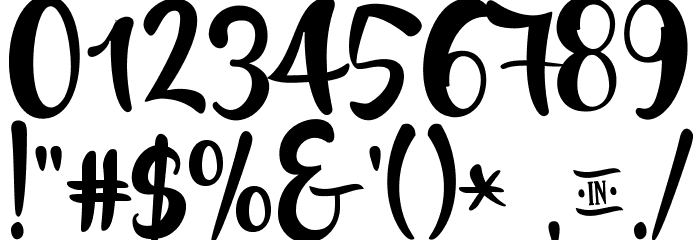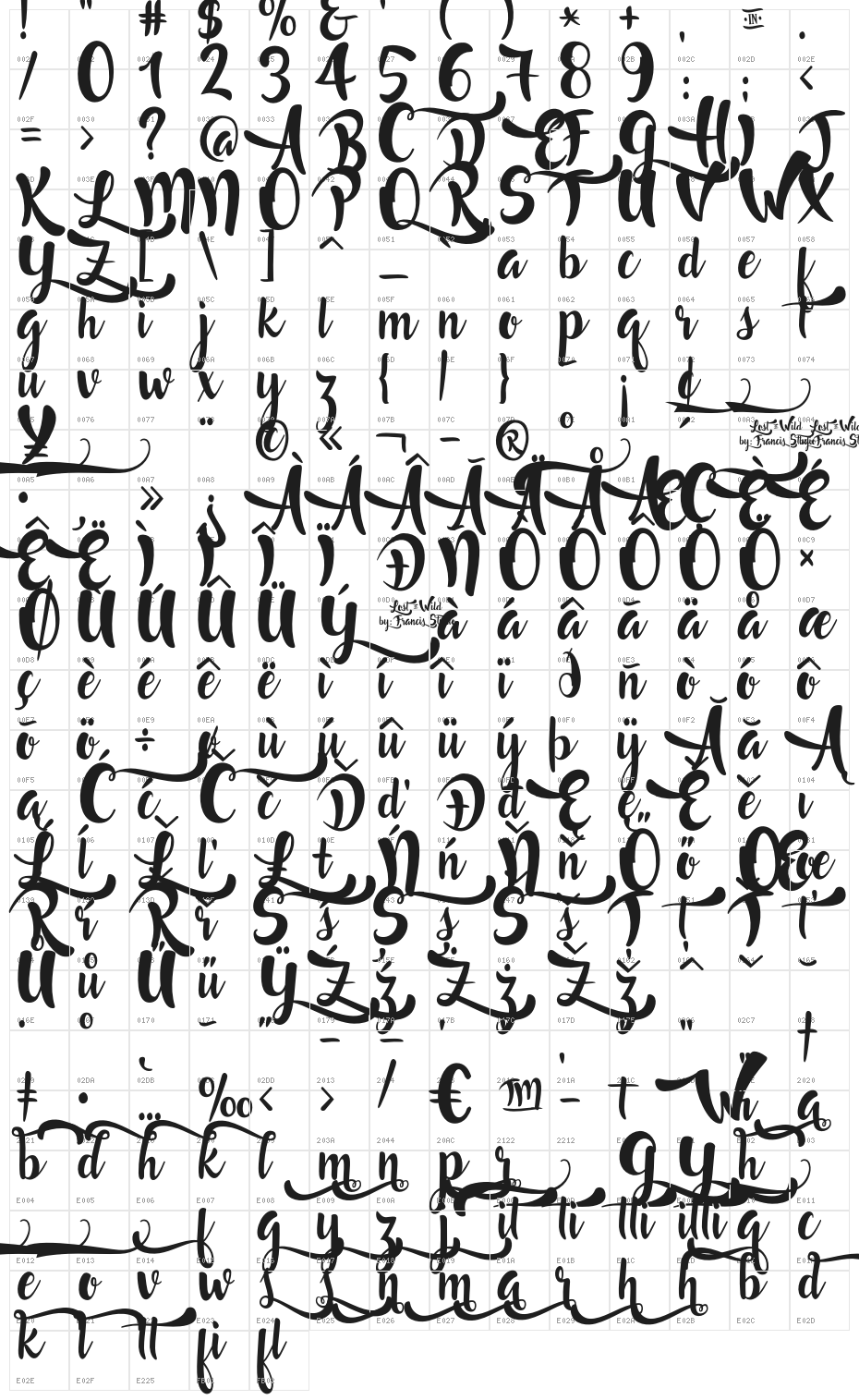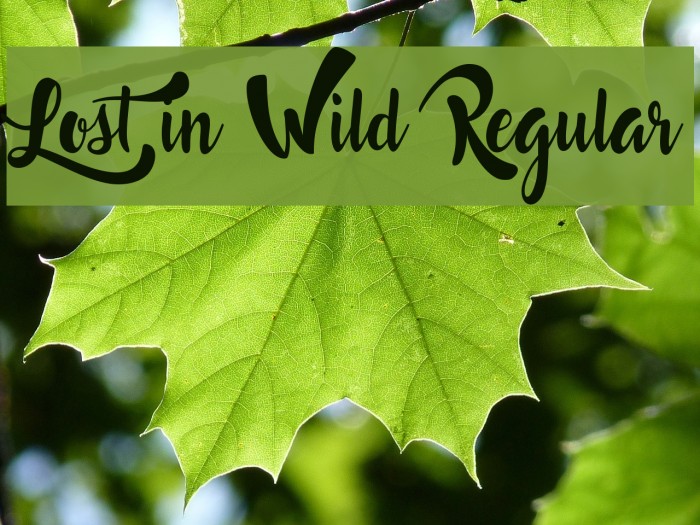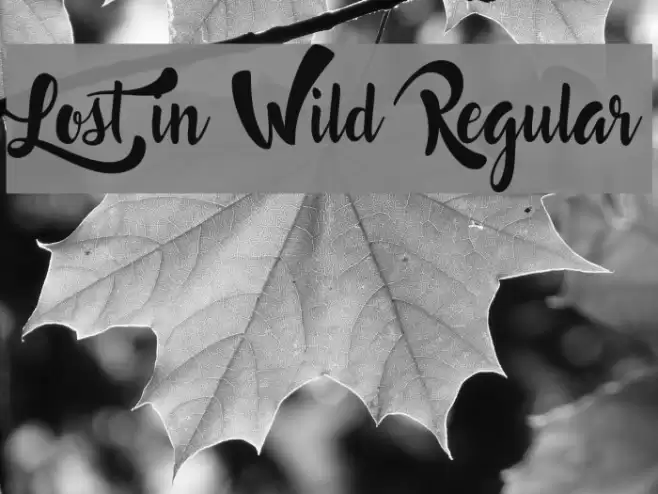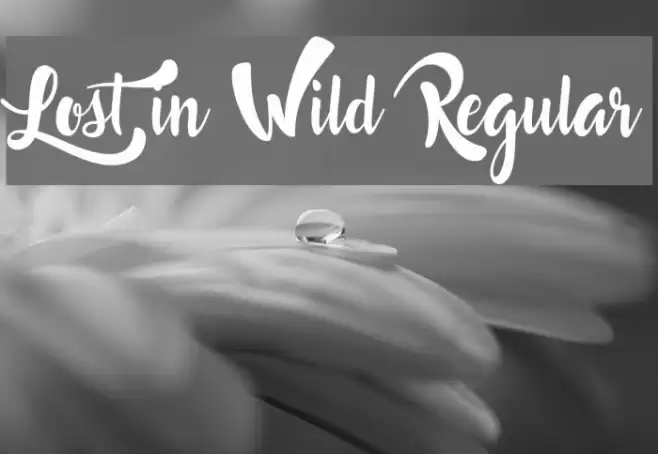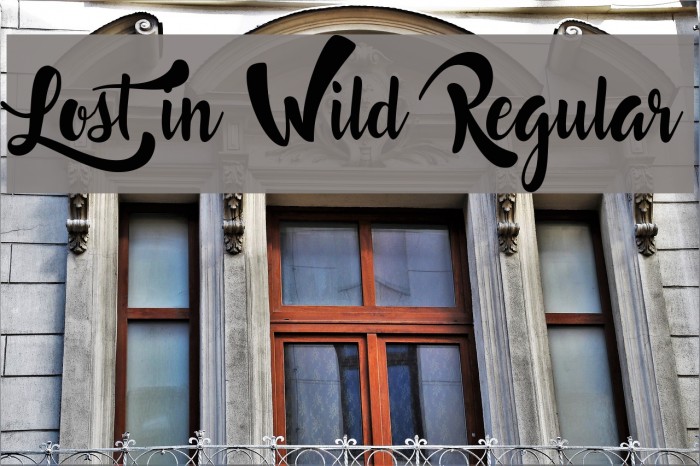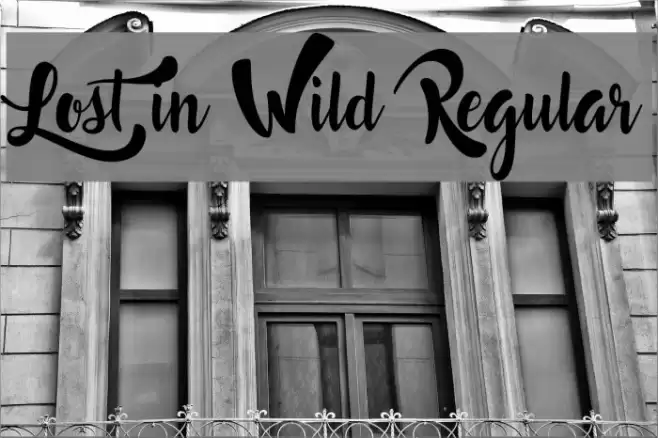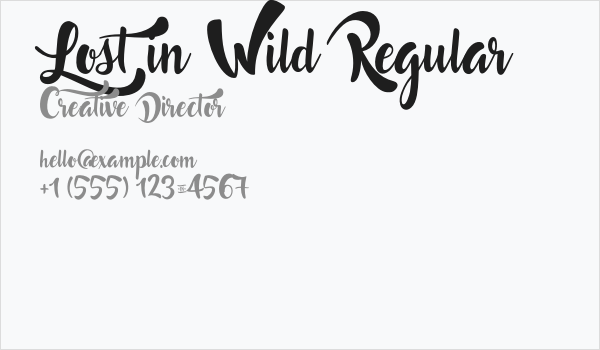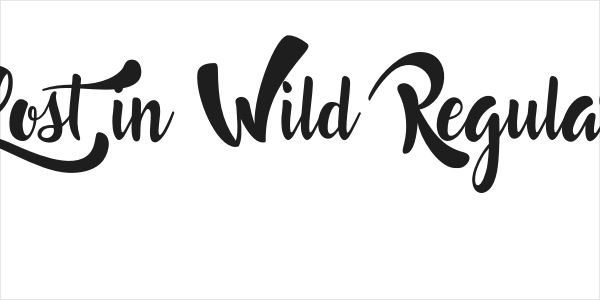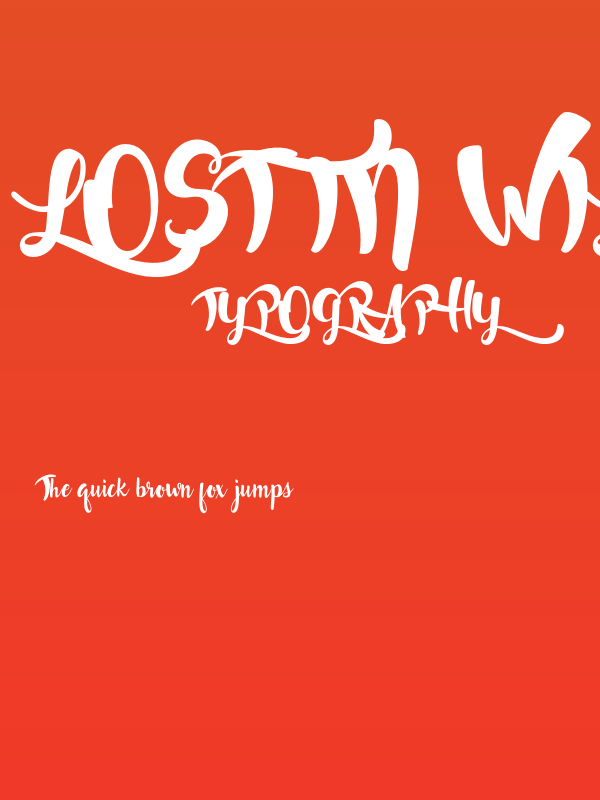
Lost in Wild Regular Font
Lost in Wild Regular Description
This font is a bold, expressive script with a playful and artistic flair. The letters are interconnected with sweeping strokes and flourishes, giving it a dynamic and energetic appearance. The uppercase letters are particularly ornate, featuring exaggerated loops and curves that add a sense of movement. The lowercase letters maintain a consistent flow, complementing the uppercase with their own unique style. Numbers and special characters are designed to match the overall aesthetic, ensuring a cohesive look. This font is perfect for projects that require a touch of creativity and personality.